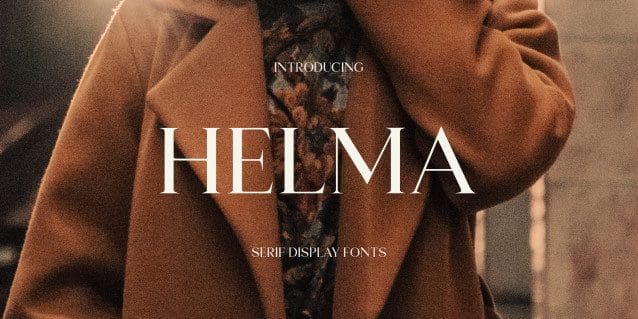
Helma Font
Helma Font is a display serif typeface that has been expressly designed for high-resolution displays such as digital and print media. With its elegant appearance and perfectly balanced proportions, it is perfect for the title text, corporate branding, and other design applications where a touch of refinement is needed.
• Renowned for its excellent legibility
Designer Name: yukitacreative